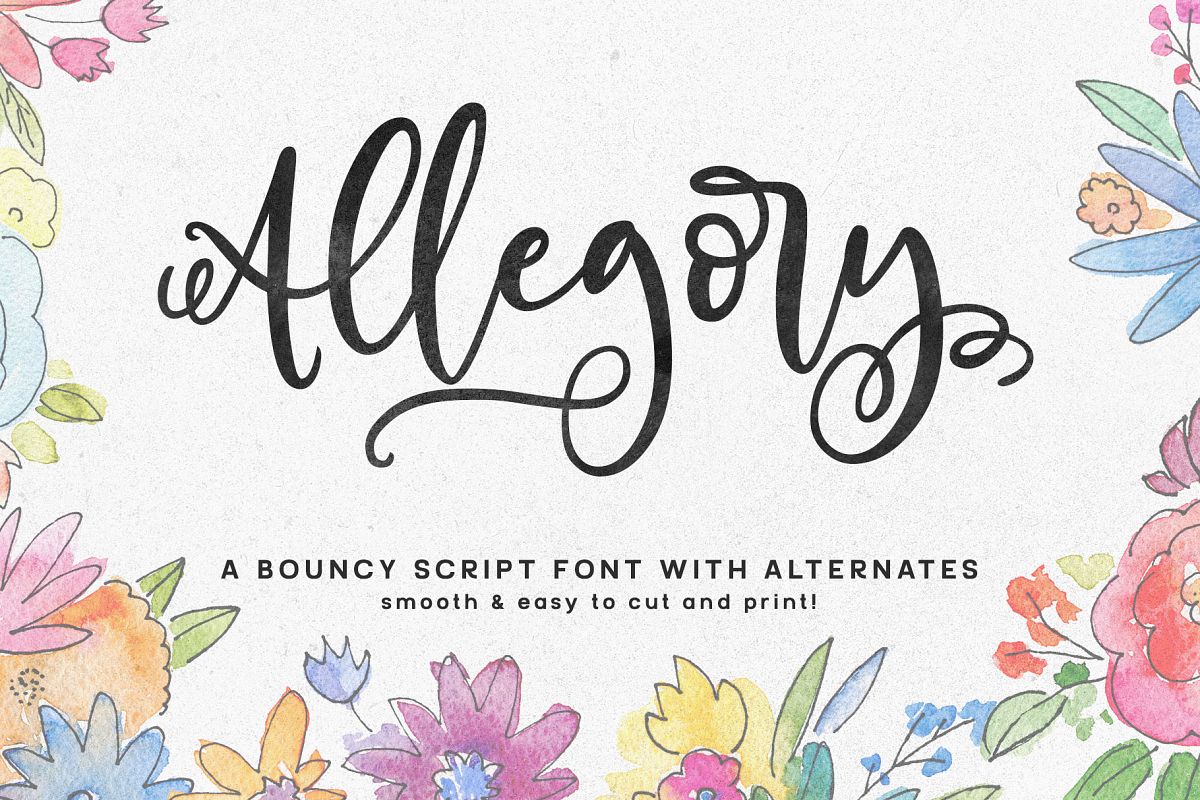
Allegory - a fun and curly script font!
Allegory
Around a year ago, I put out a font called United Scripts, in which each key you typed on your keyboard would produce not just a letter, but the full hand-lettered name of a U.S. state.
Almost immediately, I had folks asking if I had a font I'd made those state names with, or if I was going to develop a font with that style of lettering. To which the answers have been: not yet, and maybe.
Well, the big day has arrived! ALLEGORY is a font created with the same brush as United Scripts, and follows along with the same style and bounce of the United Scripts names.  The base alphabet starts out fun, but then to make things even more exciting, I've added in over 65 ligatures and over 100 alternate letters so you can add variety and flourish to your design. (And of course, everything's PUA-encoded for super easy access!)
Allegory features:
- Over 65 ligature sets for smooth letter connections (coded to standard ligatures)
- Over 100 alternates for variety (coded to stylistic set 01 through stylistic set 08)
- 180 accented characters for Western European language support